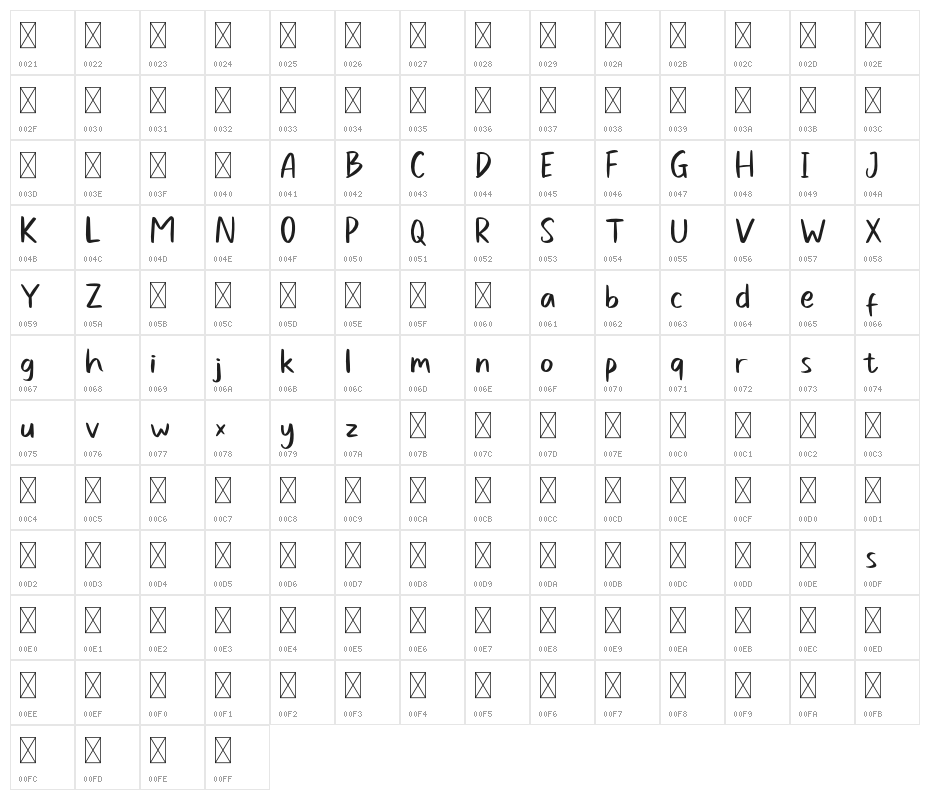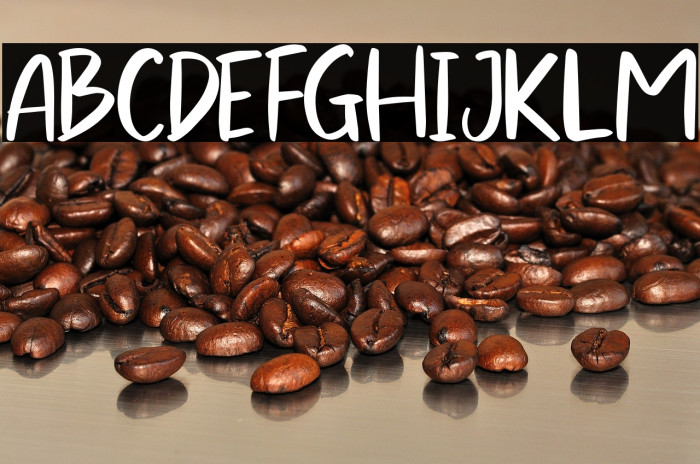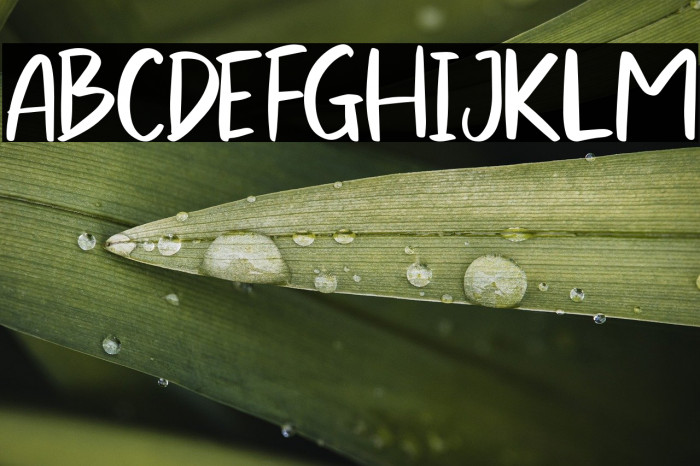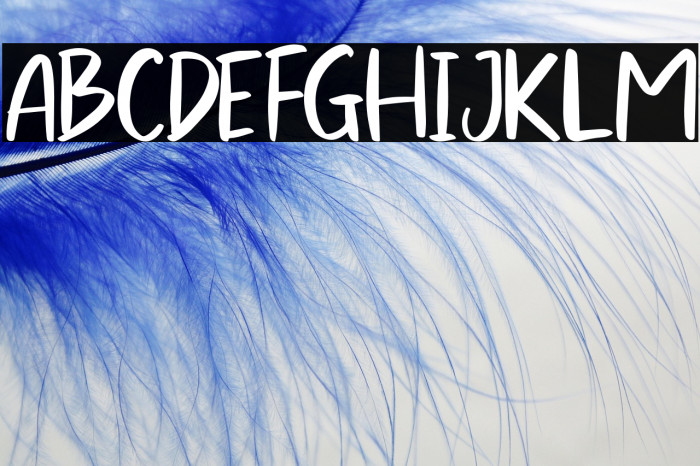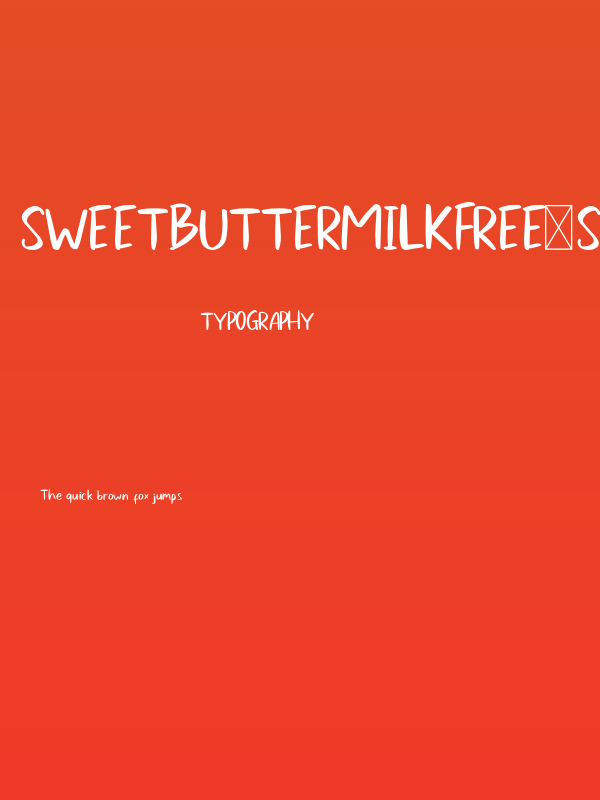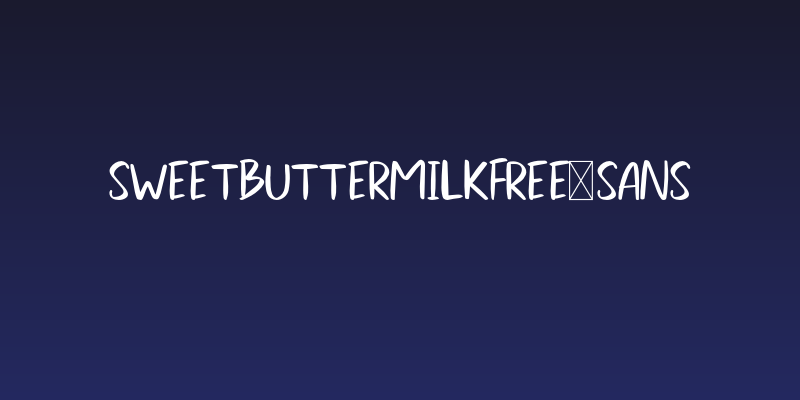
SweetButtermilkFree-Sans Font
SweetButtermilkFree-Sans Description
This font features a playful and casual handwritten style, characterized by its smooth, rounded edges and slightly irregular letterforms. The uppercase letters are bold and assertive, while the lowercase letters maintain a friendly and approachable demeanor. The strokes are consistent in width, providing a uniform appearance that enhances readability. This font exudes a sense of warmth and informality, making it ideal for projects that require a personal touch. The lack of serifs and the fluidity of the lines contribute to its modern and relaxed aesthetic.
| Overall Style | Casual, Modern |
| Use Case | Headlines, Logos, Social Media |
| Proposed Projects | Ideal for greeting cards, invitations, personal branding, and social media graphics. |